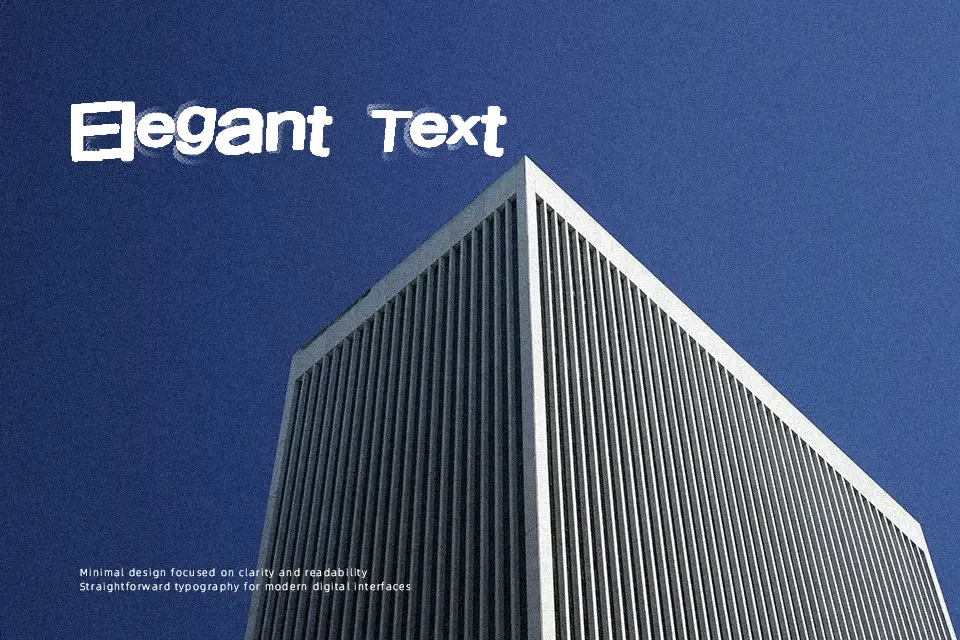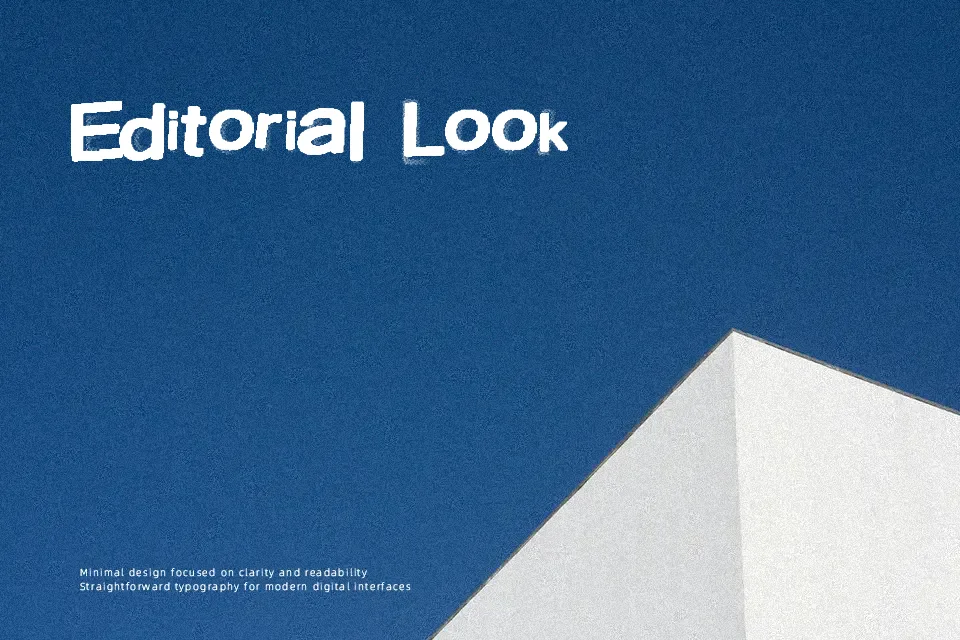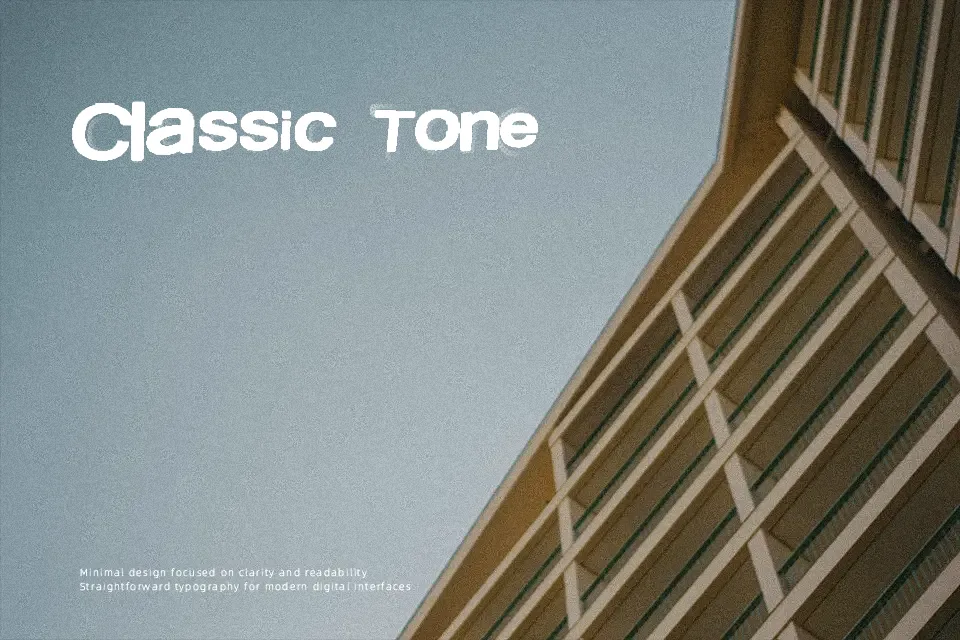
Austin Lights Font
The strokes on Austin Lights carry visible wear — letters look like they’ve been printed on rough paper and left in the sun. That intentional erosion isn’t just aesthetic; it creates a sense of age and authenticity that clean display fonts can’t replicate. It works well for event flyers, music posters, and Halloween-themed designs where texture adds to the message rather than distracting from it. Spacing is moderate, making short headlines readable even with the distressing applied. Where it stumbles is at small sizes — the eroded detail becomes muddy and hard to read below 24pt. It’s also a weak fit for anything corporate or polished; the grungy texture actively fights professionalism. Think of it as a tool with a specific job: raw, atmospheric headlines only.
Best For:- Halloween or horror-themed event posters
– Indie band merchandise and album covers
– Vintage-style social media graphics
– Grunge aesthetic packaging labels
Not Ideal For:- Body text or long-form reading
– Professional business materials or corporate reports
– Small-size applications below 24pt
– Clean, minimal branding projects
Perfect for advertising, branding, and halloween, with a bold and decorative style.